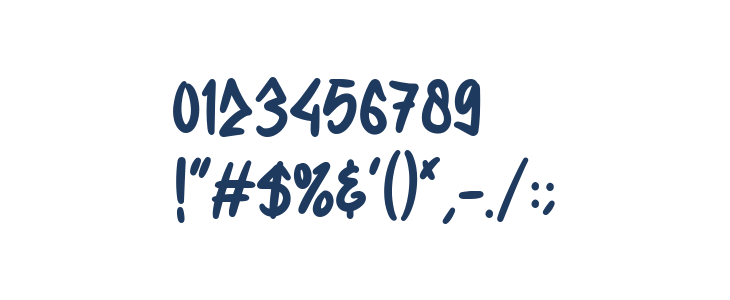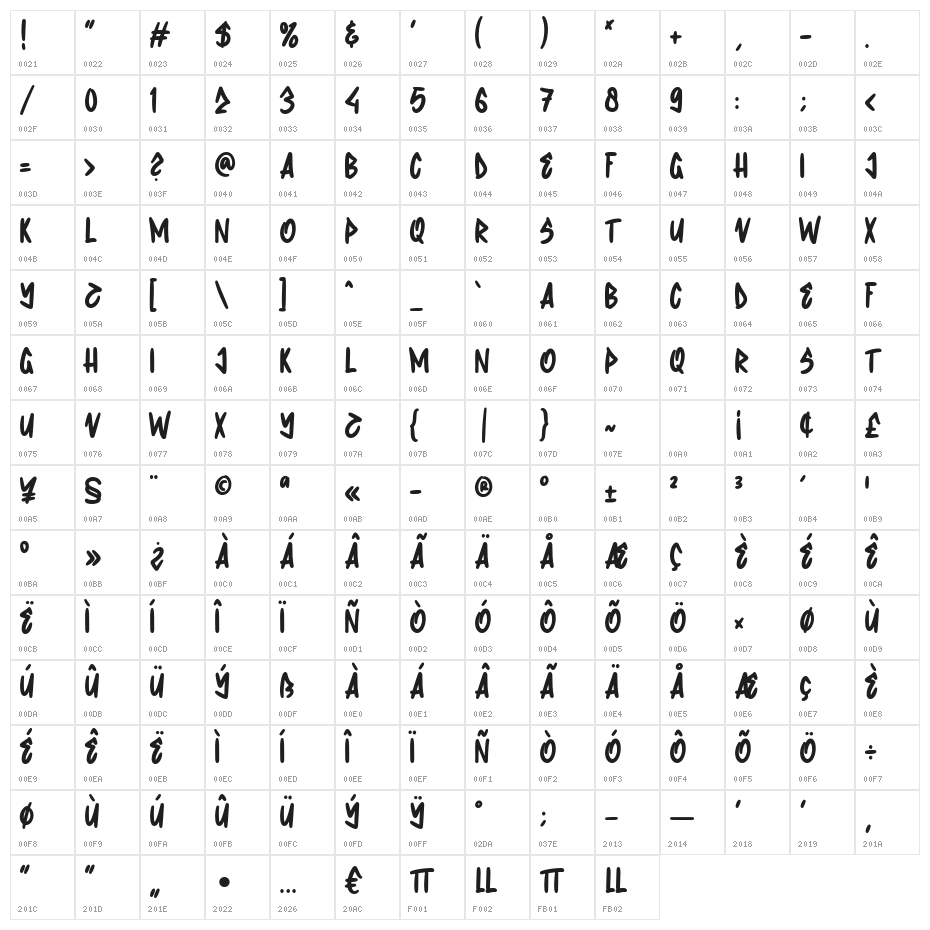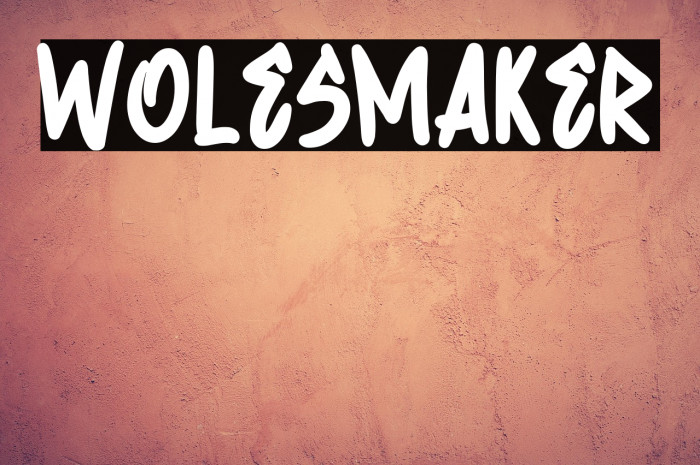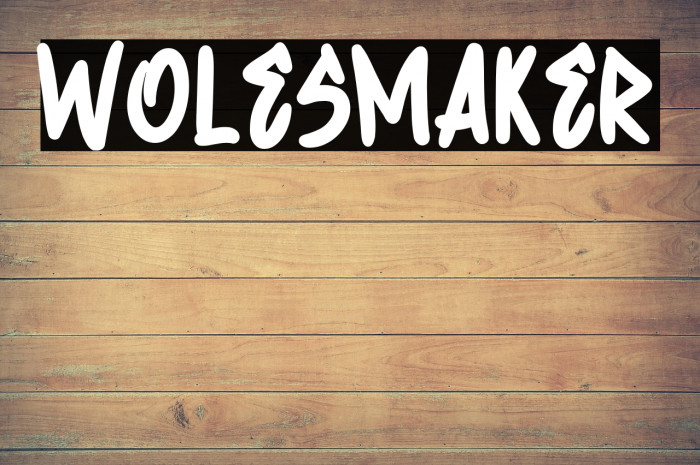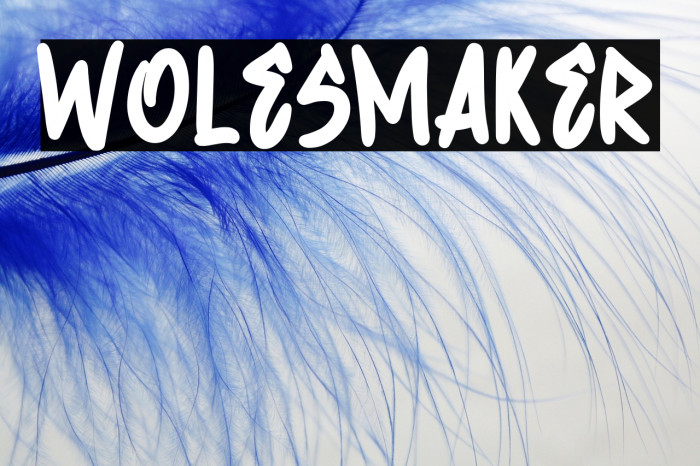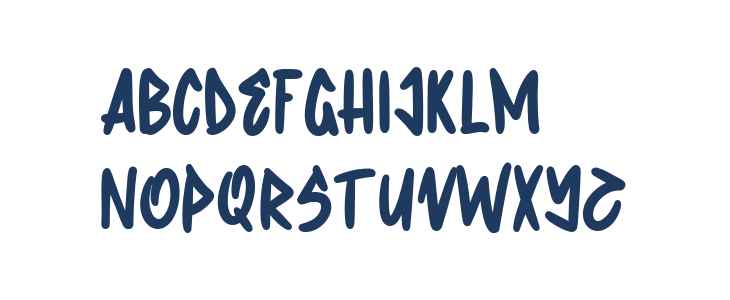
Wolesmaker Font
Wolesmaker Description
This font features a bold, handwritten style with a playful and energetic appearance. The characters are slightly slanted, giving a dynamic and informal feel. The strokes are thick and consistent, providing a strong visual impact. The uppercase and lowercase letters maintain a cohesive look, while the numerals and special characters complement the overall design. The font's casual and lively nature makes it suitable for creative and expressive projects.
| Proposed Projects | Ideal for posters, social media graphics, branding, and packaging designs that require a lively and informal touch. |